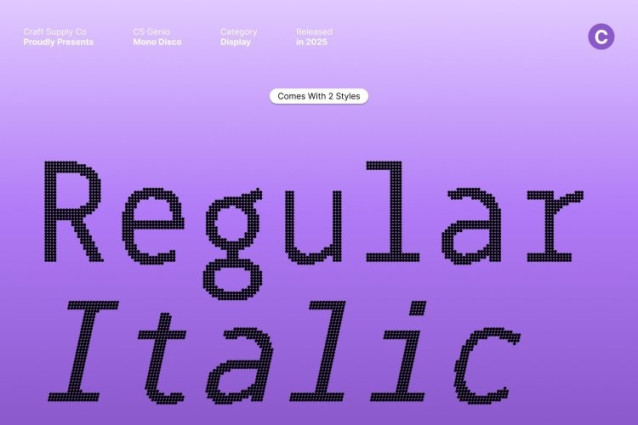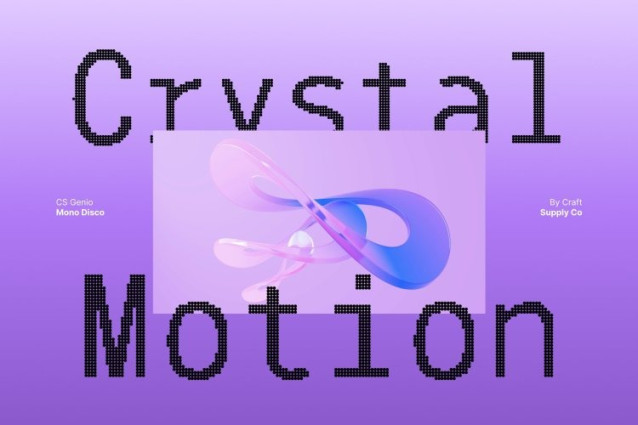
CS Genio Mono Disco Font
CS Genio Mono Disco Font This font brings together the precision of monospaced typography with a fresh, contemporary spirit. Each character occupies equal spacing, creating a clean, structured rhythm that enhances readability and gives your layouts a modern, organized feel. This foundation makes the font ideal for creative projects that value clarity and balance.
Creative Energy with Shimmering Disco Detail
What sets apart is its dazzling disco effect. The added shimmer and shine introduce a lively, energetic personality that contrasts beautifully with its strict monospace structure. This blend of order and sparkle creates a unique aesthetic perfect for designers seeking something modern yet playful.
Versatile for Branding, Posters, and Print Layouts
Whether used for bold brand identities, eye-catching posters, or stylish print compositions, adapts effortlessly. Its combination of structured form and shimmering detail ensures your message stands out while maintaining a polished, contemporary look.
Perfect Balance of Precision and Personality
This font proves that technical fonts don’t have to be boring. Its crisp shapes, equal spacing, and disco-inspired highlights work together to create a font that is functional yet expressive. Ideal for projects that aim to feel innovative, stylish, and full of creative energy, this font brings both clarity and character to every design.